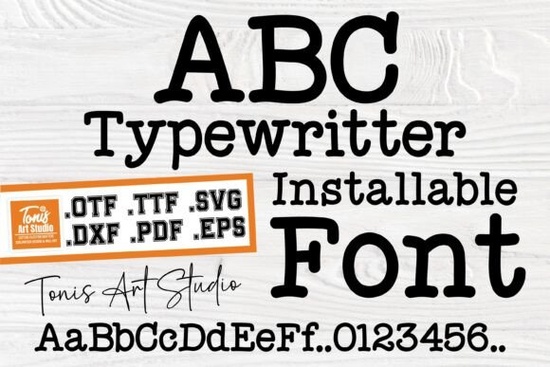
If you need a clean, vintage lettering style that prints clearly and cuts smoothly, the Ab Typewriter Font delivers exactly that. It captures the uneven ink spread and mechanical charm of old manual machines without sacrificing readability. Whether you are designing printable wall art, laying out scrapbook pages, or preparing vinyl decals for a small shop, this typeface gives your work a grounded, nostalgic feel that pairs well with both modern and rustic layouts.
What makes this typewriter style work for modern projects?
Typewriter letters have a built-in texture that feels authentic. Instead of perfectly uniform strokes, you get slight variations that mimic real ink on paper. This works well for crafters and print-on-demand sellers who want designs that look hand-produced. The retro aesthetic fits nicely on journal covers, menus, and branded packaging. When you need a secondary typeface to balance a flowing script, you might browse options like la charly for a softer contrast, or keep things casual with a handwritten bundle when your layout needs a personal touch.
For designers who mix type styles in a single layout, balancing weight is important. A sturdy monospaced font like this one sits well next to lighter display options. You might experiment with urban stars for a modern headline, or try honey font when you want a warm, rounded accent. If your project leans toward outdoor or heritage branding, westfalia provides a rugged counterpart that keeps the overall composition grounded.
What projects suit a vintage typewriter look best?